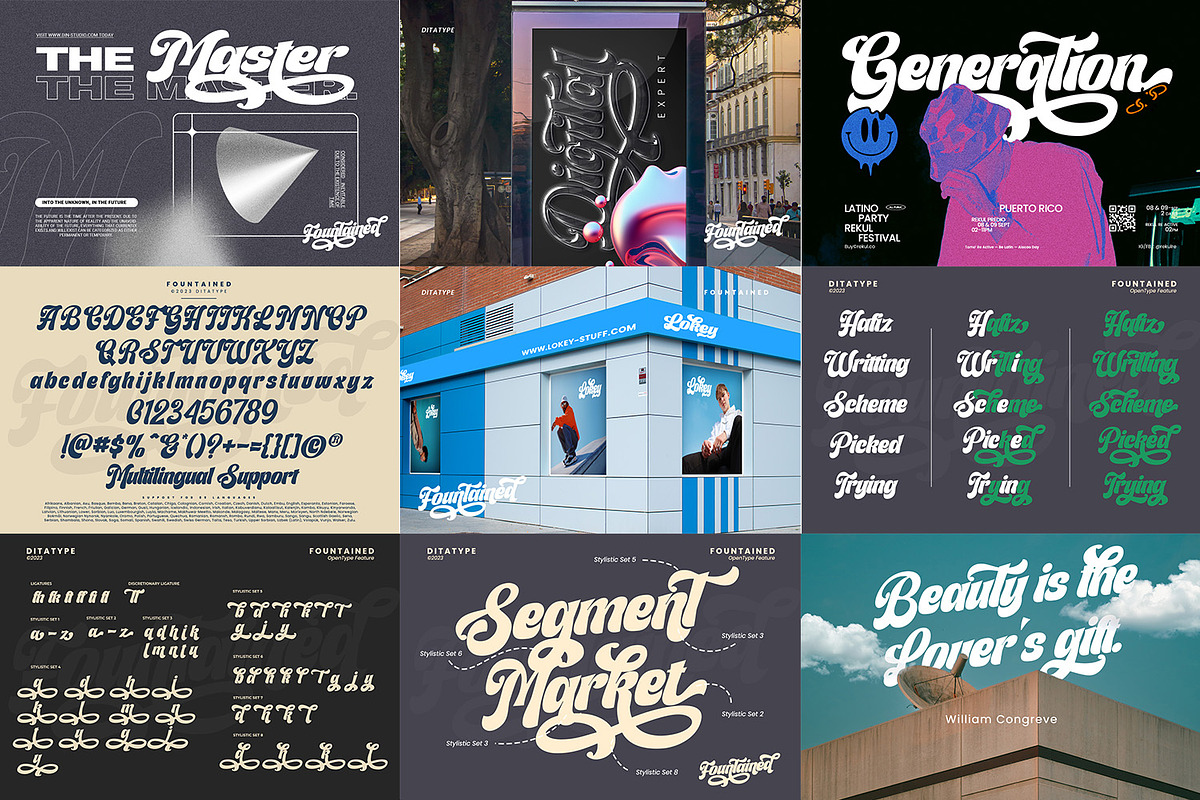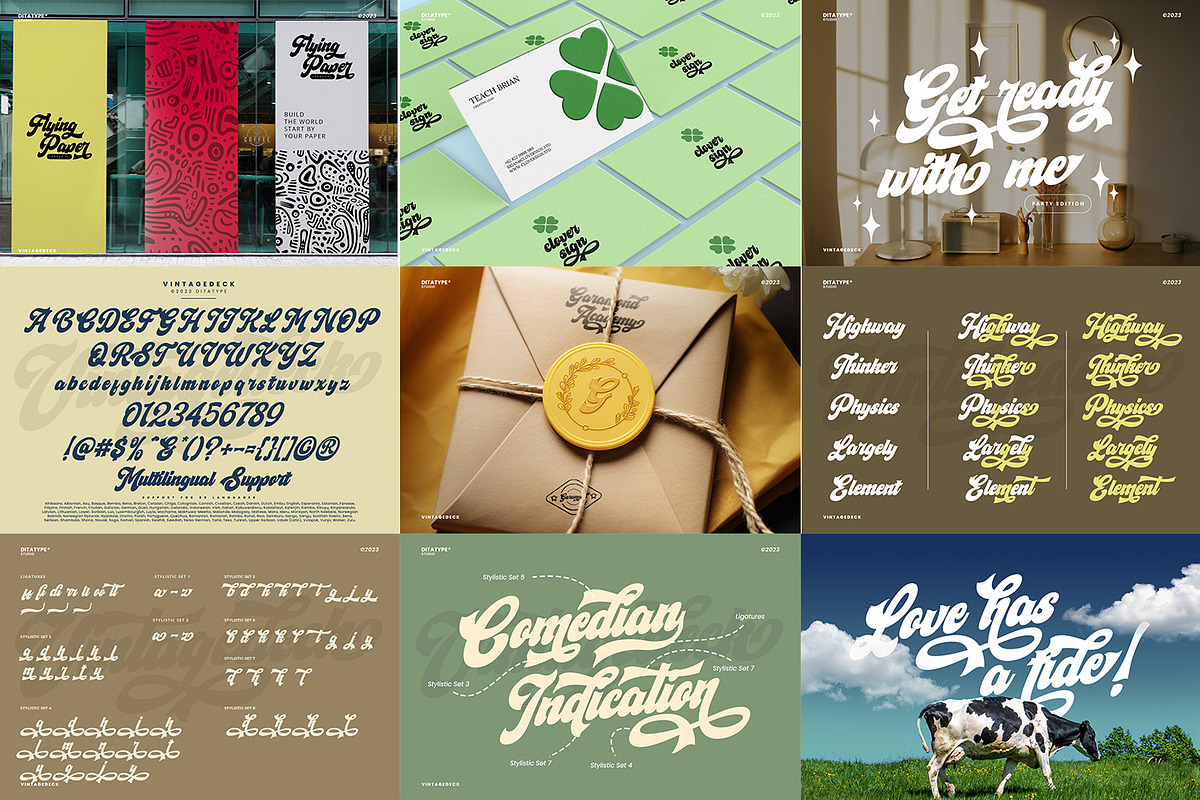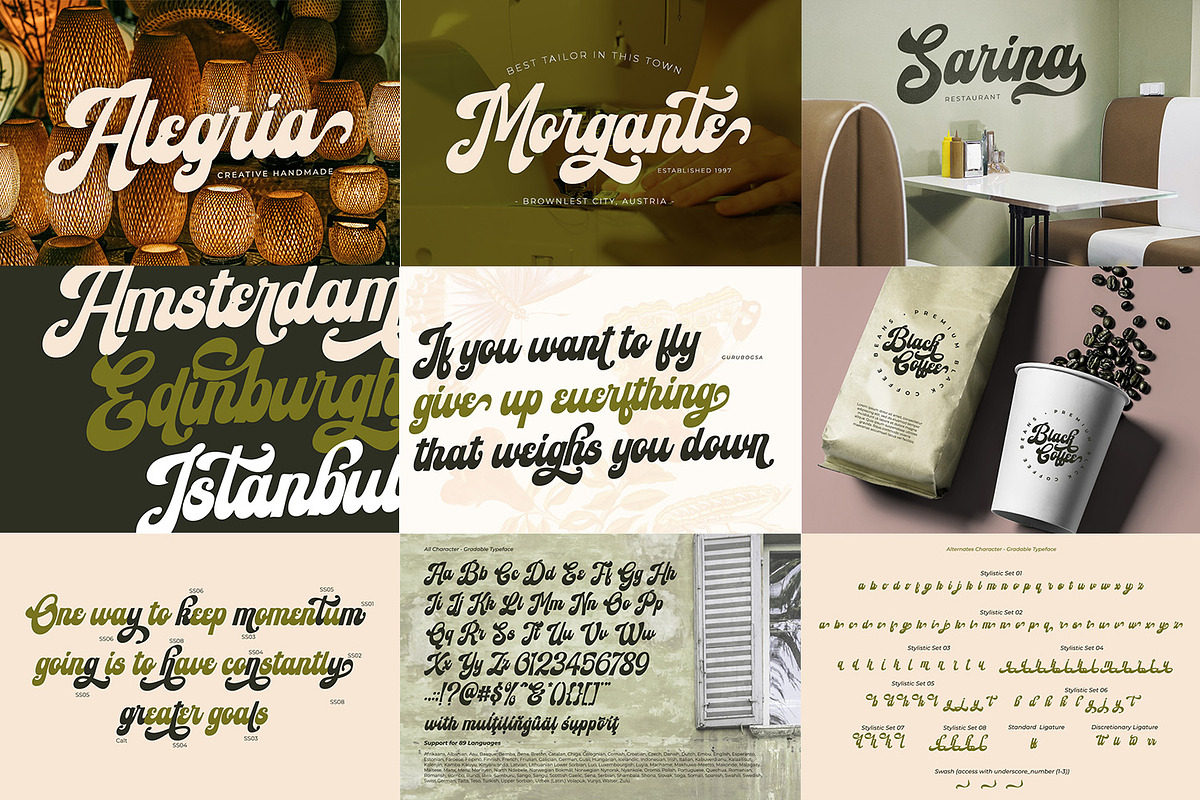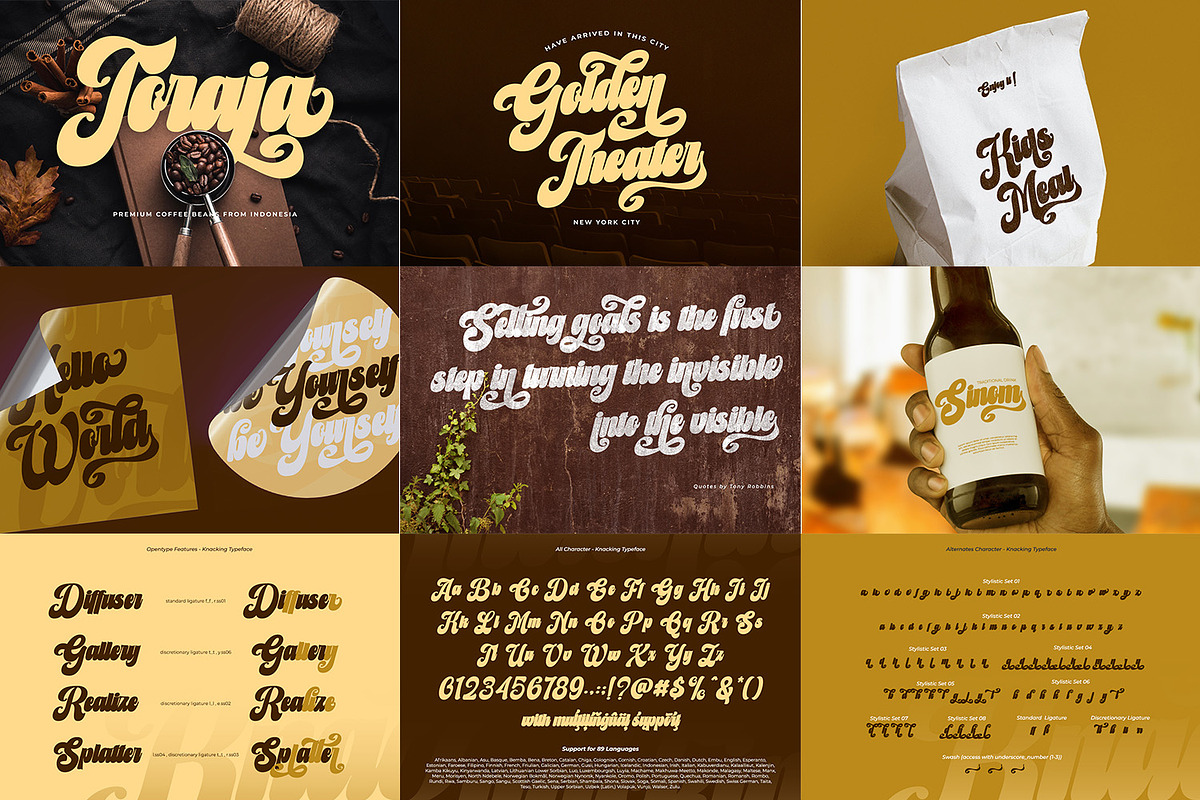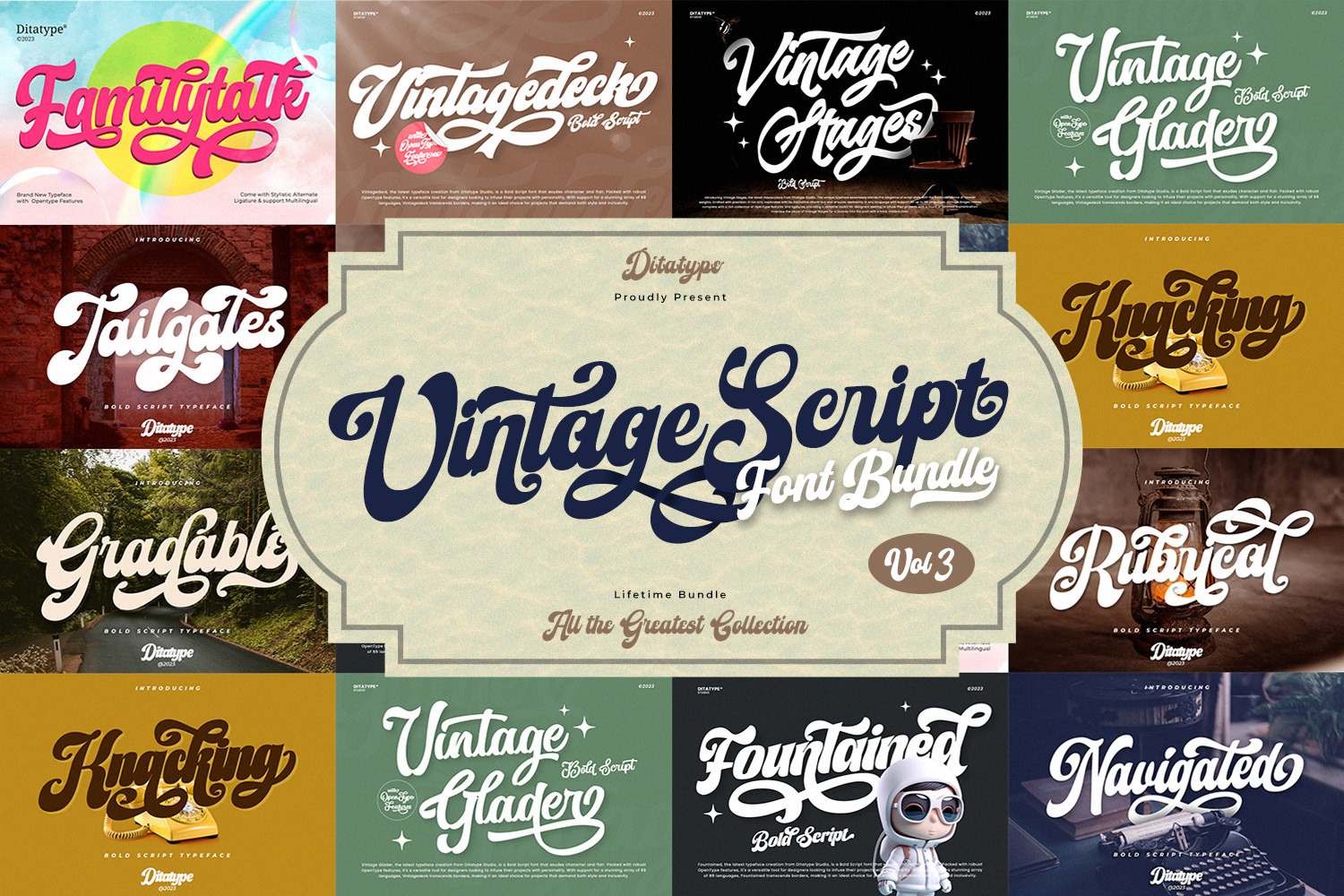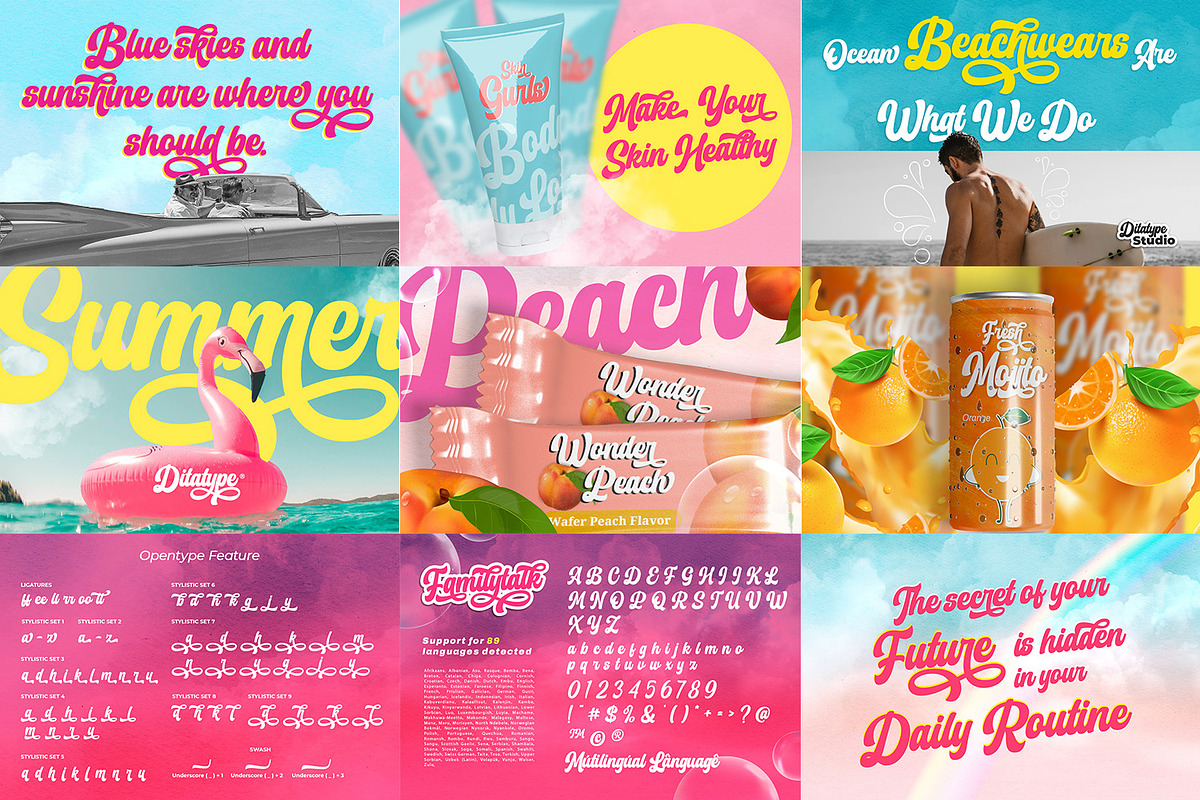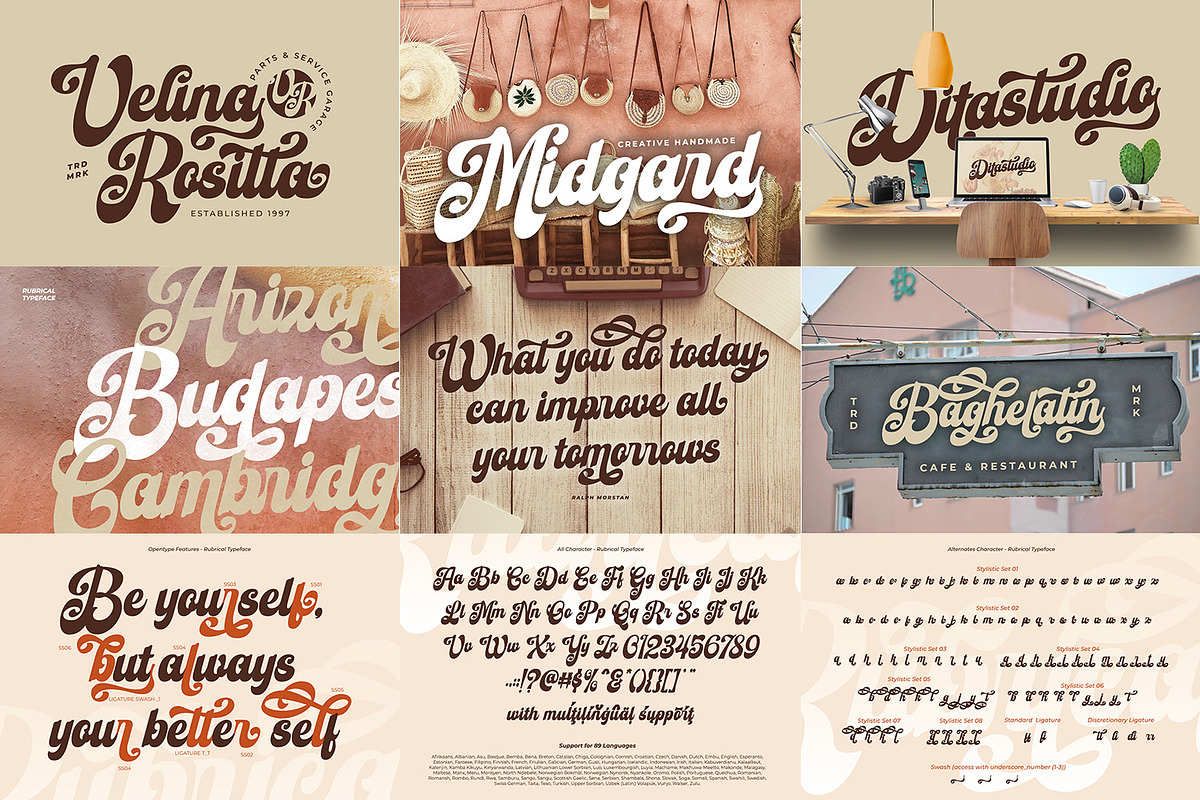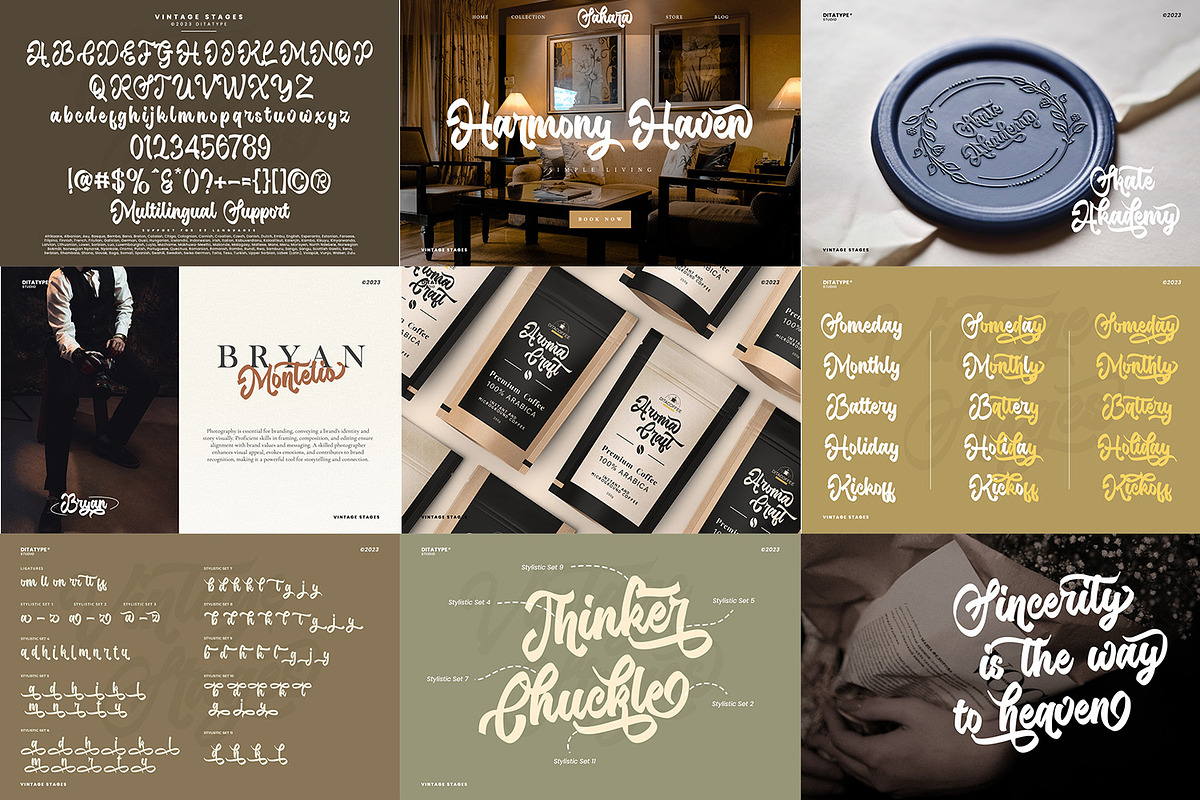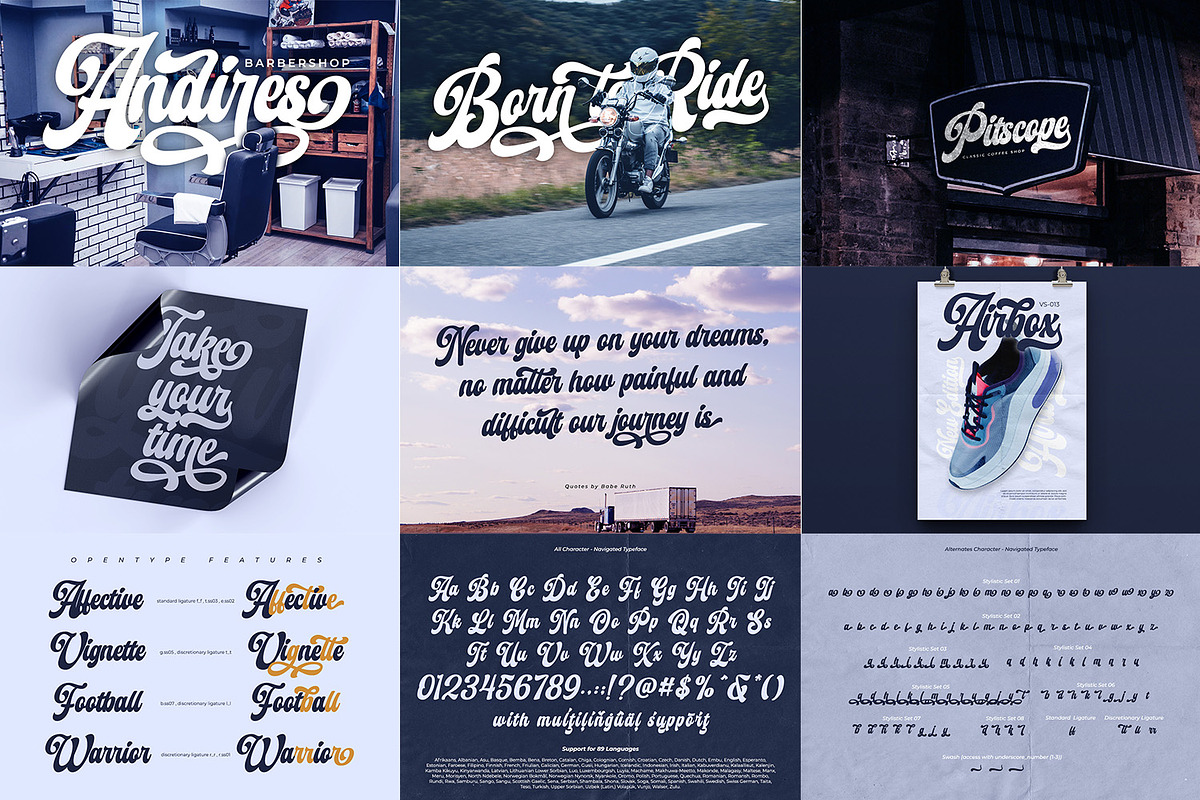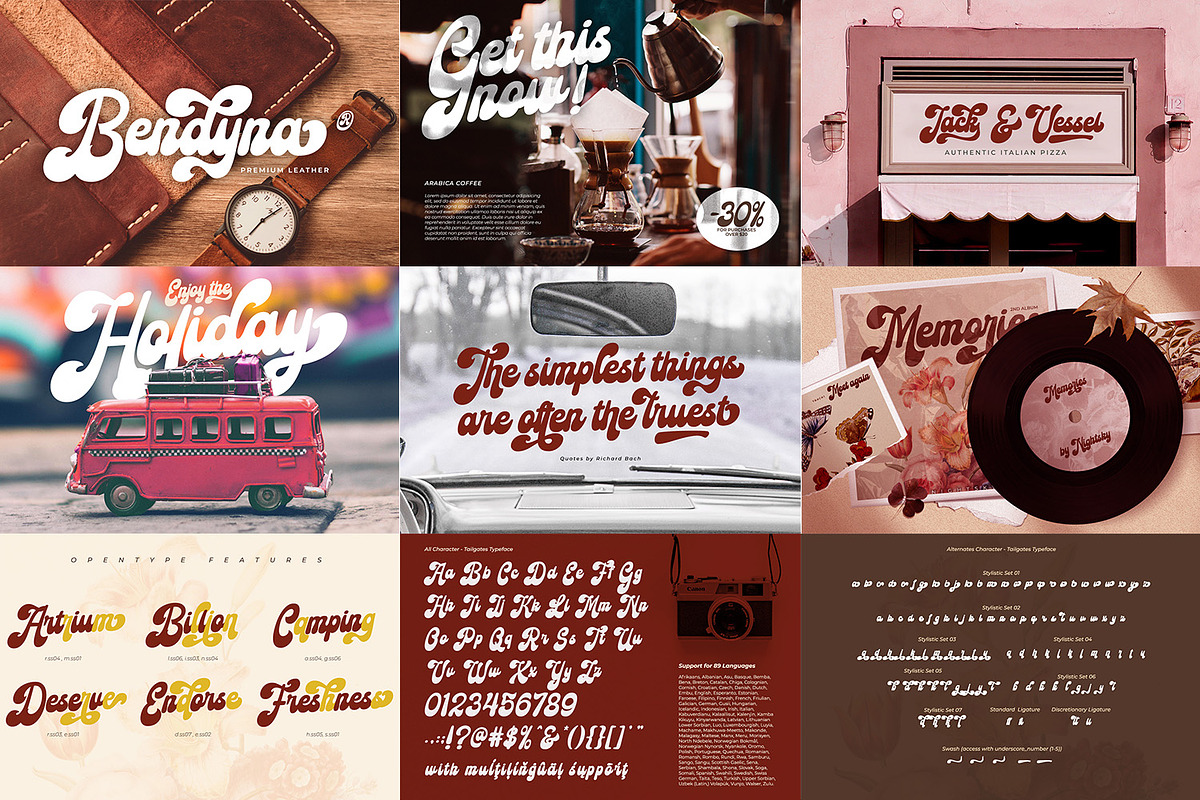
Vintage Script Vol 3 Font Bundle
Hello, Everyone! Introducing Vintage Script Vol 3 Font Bundle from Ditatype!
A handpicked collection of script fonts that evoke the charm and nostalgia of vintage typography. This bundle brings together a curated selection of script fonts inspired by mid-century signage, classic advertisements, and retro lettering styles. Each font in this bundle offers a wide range of styles and personalities. From elegant cursive scripts to playful brush lettering. Create gorgeous titles, logos, printed quotes, posters, and branding materials!
The fonts include full set of character and glyph and it also includes Multilingual Supports to help you reach a global audience. See the previews above to get some inspiration on how you can use them.
Fonts include are :